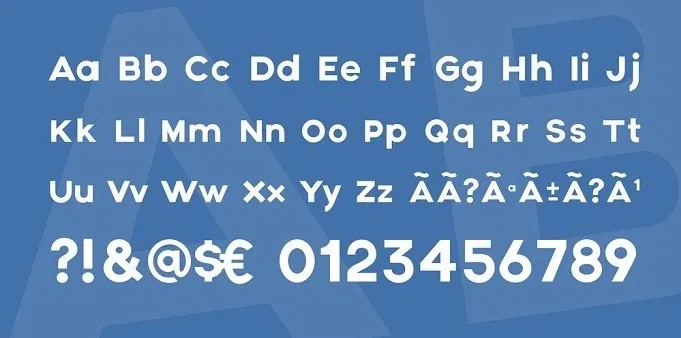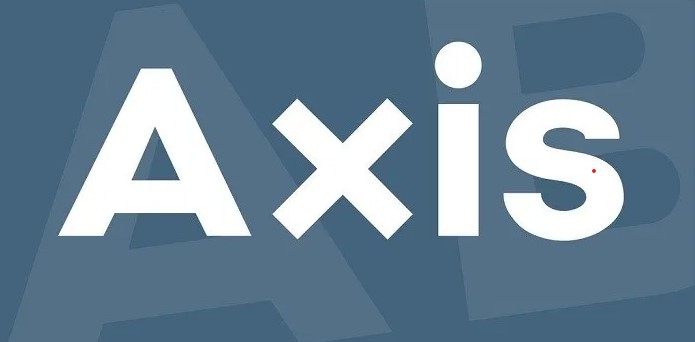
Axis Typeface Font
Axis Typeface Font is azedo typeface, Its miles common identity is not unusual in nexa font. It’s miles regarded for its bold and italic characteristics. This remarkable font has made extensively in a top-notch kind preserving an opentype define the shape. This font comes beneath the beauty of formidable fonts.
So, due to this option, you could use this font for a large market region. This font is finished in replica and paste skills. This typeface is understood for its precise text generator characteristic. Axis Typeface Font Free The completes letters collectively with this monetary employer monopoly font feature pinnacle-notch happy he biker font.